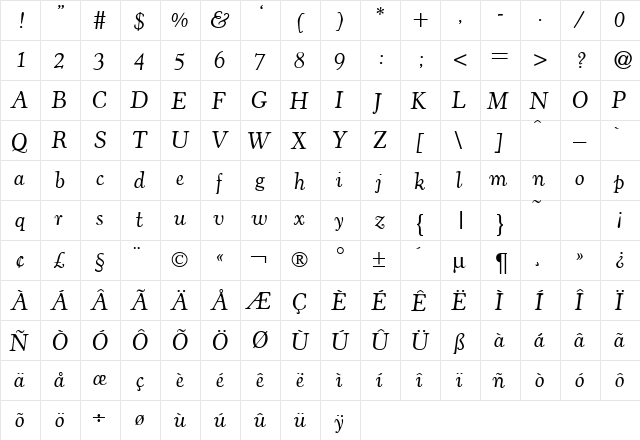
CocosOldDB Italic
Design Context for CocosOldDB Typeface
CocosOldDB takes a measured approach to typography — its balanced proportions and neutral character make it a reliable workhorse for both digital and print work. The dynamic lean of this cut emphasises speed and emphasis in any layout.
Pro Tip: Use CocosOldDB for emphasis, pull quotes, and subheadings where its slanted energy can add rhythm to the layout.